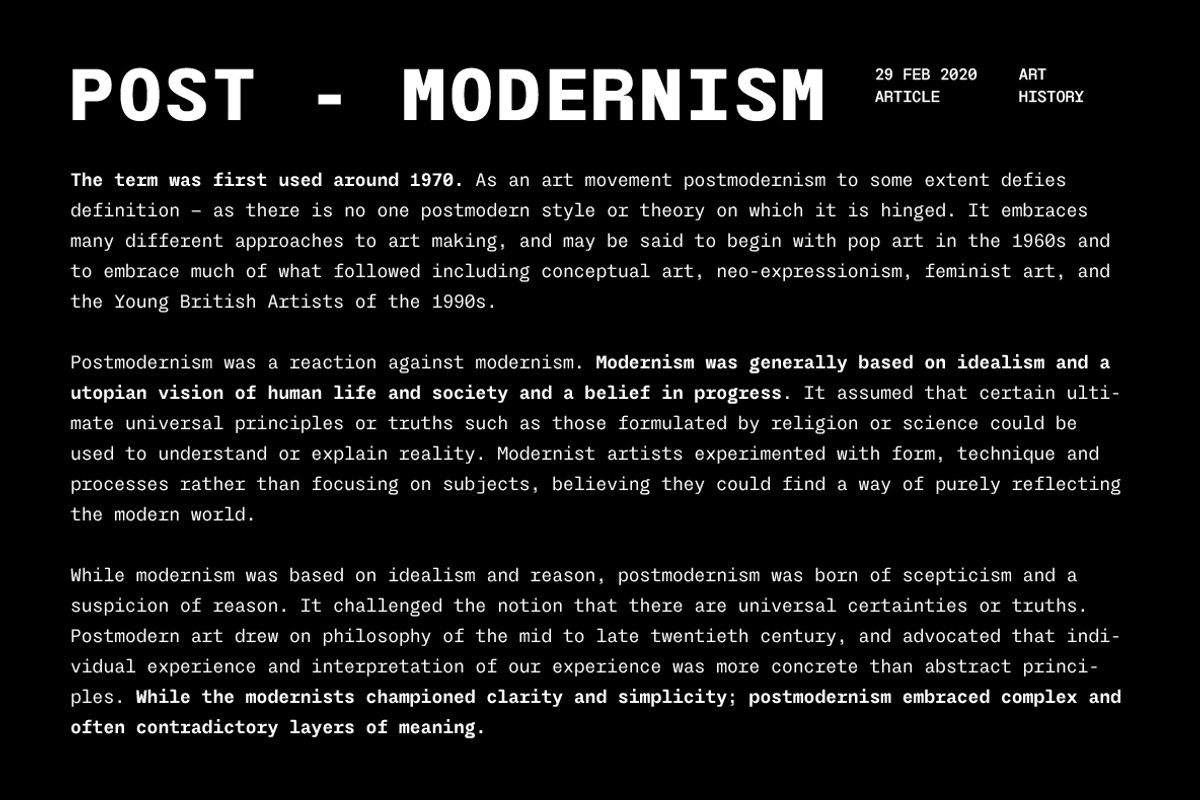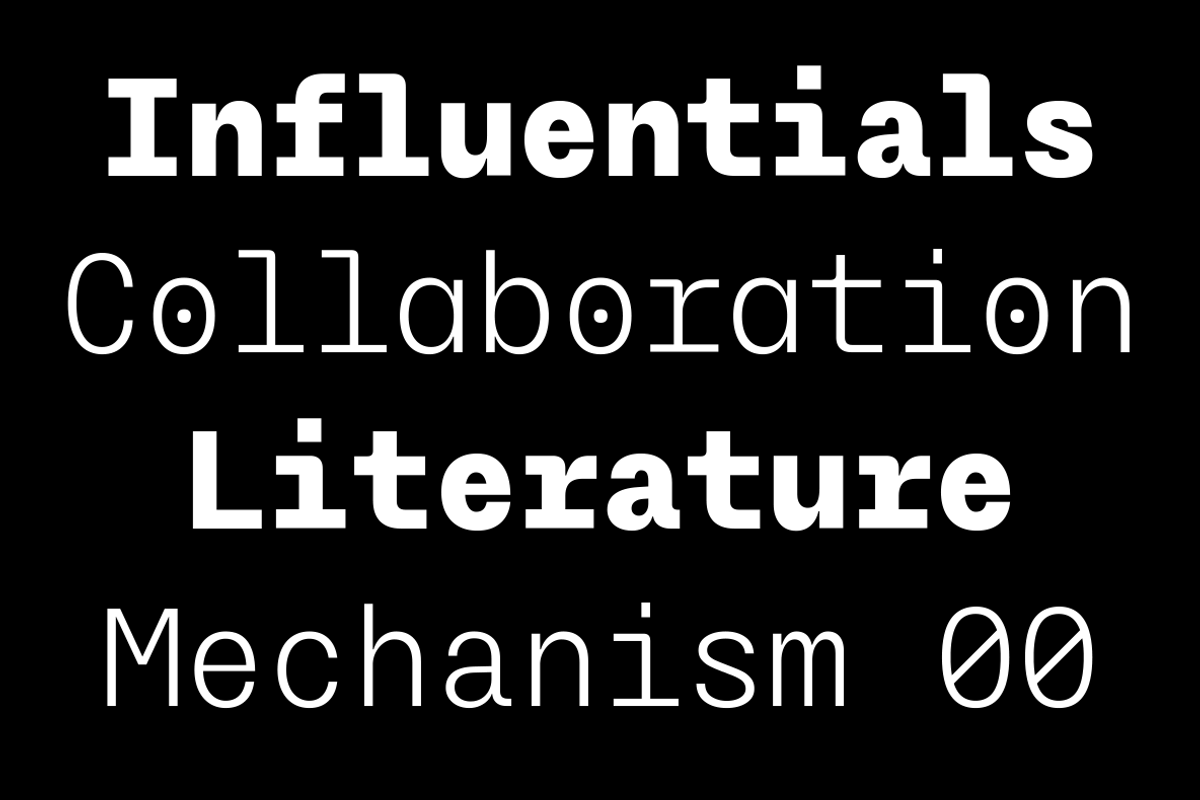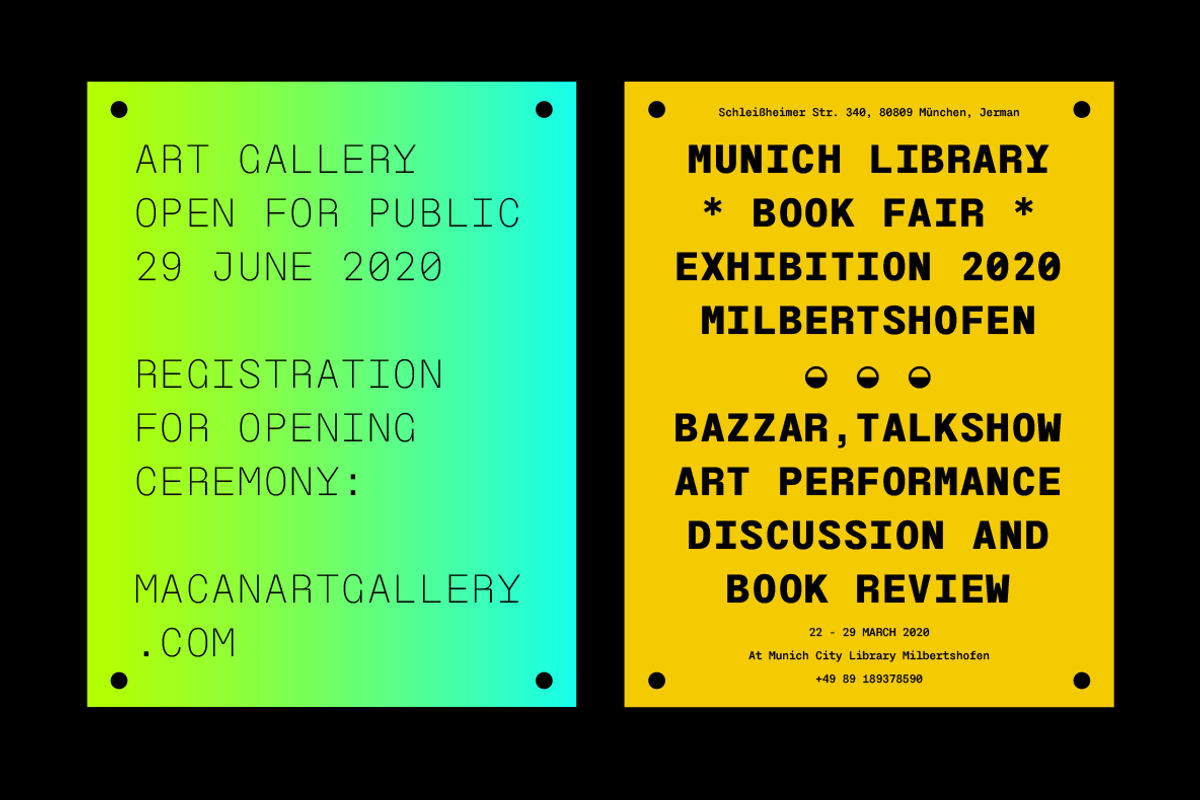
TG Frekuent Mono
TG Frekuent Mono is a new modern geometric sans serif with a monospaced style. TG Frekuent Mono has several styles from ultra-light to extra-bold and one variable font.
TG Frekuent Mono designed with a high precision thus making this typeface is very structured and has a modern feel. And this typeface has several stylistic alternates who inspired by several characters from a script typeface, who made this stylistic alternate is a little quirky and different but still fit perfectly with the whole design of this typeface.
This thing makes this typeface is very highly recommended use for body text or display text because you can get feel something a structure an organized but at the same time you can get to feel quirky and different in this typeface.